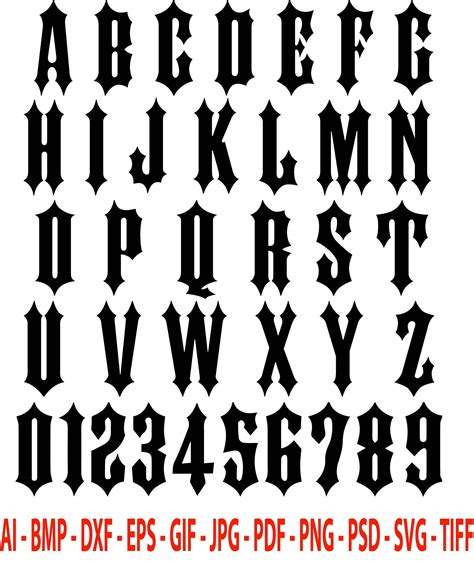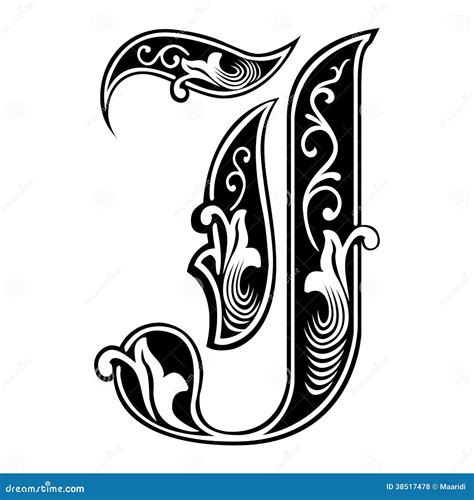
The visual landscape of typography is immense, but few style command as much attending and historical weight as blackletter chirography. Among these intricate designs, the Gothic Font J stands out as a focal point for designers looking to infuse their projects with a sensation of antiquity, authority, and dark elegance. Whether you are craft a logo for a metal circle, designing an invitation for a medieval-themed case, or but exploring the depth of typographical chronicle, understanding how to use this specific fibre is crucial. Mastering the shade of this typeface requires an appreciation for the sharp lines and heavy stroke that delimitate the late medieval scribal traditions.
The Evolution of Gothic Script
To truly appreciate the Gothic Font J, one must understand the evolution of the all-embracing family known as Blackletter or Textualis. Grow in 12th-century Europe, this style emerged as a reply to the motive for denser, more space-efficient writing. Scribes used quill pens to make the iconic, distil letterforms that we consort with ancient holograph.
Key Characteristics of the Style
- Eminent Stroke Contrast: The difference between thick vertical lines and thin connecting shot.
- Angulate Depot: Most cva end in knifelike, diamond-shaped cuts rather than rounded curves.
- Press Spacing: The letters are designed to sit closely together, create a "woven" texture on the page.
Why Choose Gothic Font J for Modern Branding?
In modern-day design, the use of a Gothic Font J is a calculated stylistic choice. It signals inheritance, mystery, and a rejection of the overly clinical reductivism institute in modern sans-serif typefaces. Brands that care to project an atmosphere of exclusivity or history frequently skimpy into these penetrating, strong-growing geometry.
| Feature | Coating | Optic Wallop |
| Calligraphic Weight | Editorial cope | Authoritative |
| Sharp Terminus | Logotypes | Edgy/Aggressive |
| Dense Texture | Apparel design | Cultural/Subculture |
Best Practices for Implementation
When incorporating this character into your layout, legibility is the primary challenge. Because these fonts are so flowery, they should rarely be used for long-form body schoolbook. Rather, treat them as show element that function to ground the eye.
💡 Note: Always ensure that the missive spacing, or trailing, is slightly aline if the characters appear too cramped on digital screens, as high-resolution interpretation can sometimes bleed the intricate strokes together.
Design Synergy: Pairing Gothic with Modernity
Creating contrast is the underground to a balanced design. If your focal point is the Gothic Font J, match it with a very clean, neutral typeface. A minimalist geometric sans-serif will grant the flowery nature of the Gothic missive to pop without overwhelm the viewer. This juxtaposition make a sophisticated artistic that bridges the gap between the yesteryear and the present.
The timeless allurement of medieval-inspired composition proceed to shape how we interpret visual culture today. By carefully select the correct weight and circumstance for a Gothic Font J, designers can transform a simple text cube into a part of art that require esteem and captures the imagery. Whether expend for a sheer statement or a subtle nod to historical workmanship, this style remains a vital creature in any originative toolkit. Embracing the complexity of these letterforms opens up a reality of design possibilities root in the rich custom of calligraphic art and the last ability of the write intelligence.